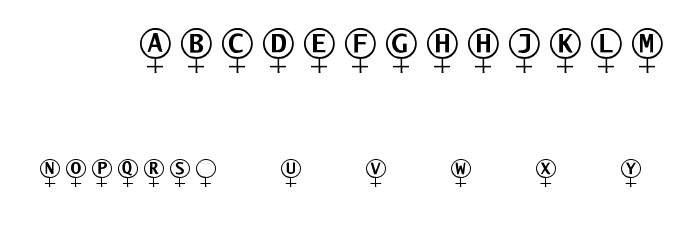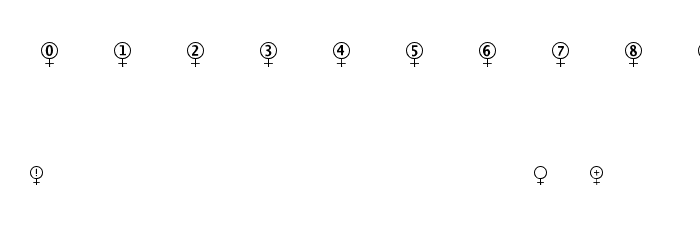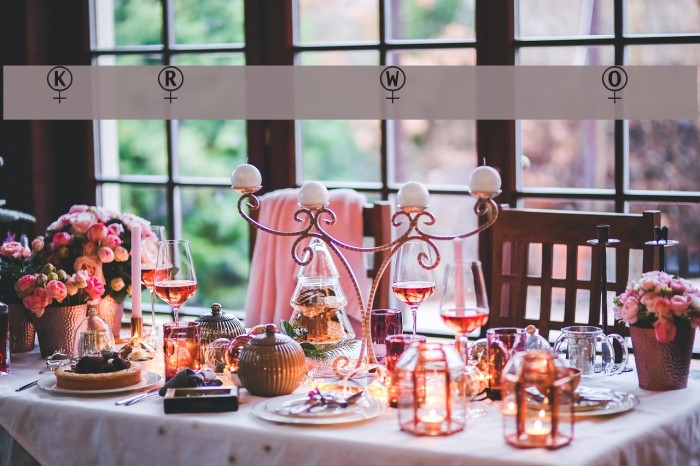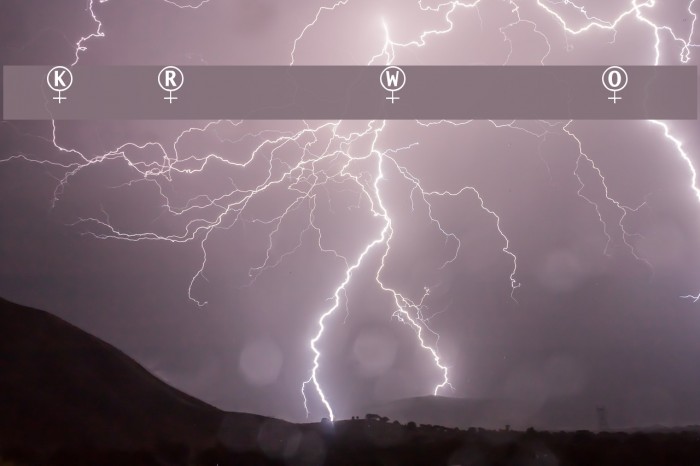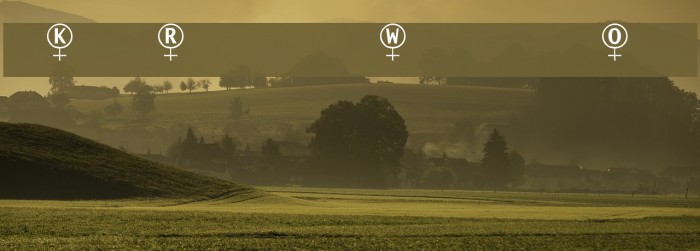
KR Woman Oh! Font
This unique decorative font features uppercase letters encased in circles with a feminine symbol beneath each character. The design is bold and eye-catching, with a playful yet strong aesthetic. The letters are evenly spaced within their circular enclosures, creating a uniform appearance. The font's distinct style makes it suitable for projects that aim to convey themes of empowerment, femininity, or gender equality. Its decorative nature is ideal for creative and artistic applications, adding a touch of whimsy and boldness to any design.
A bold decorative font with uppercase letters in circles and feminine symbols.
- Proposed Projects: Ideal for feminist-themed posters, gender equality campaigns, artistic projects, and creative branding.
- Use Case: Logos, Posters, Artistic Projects